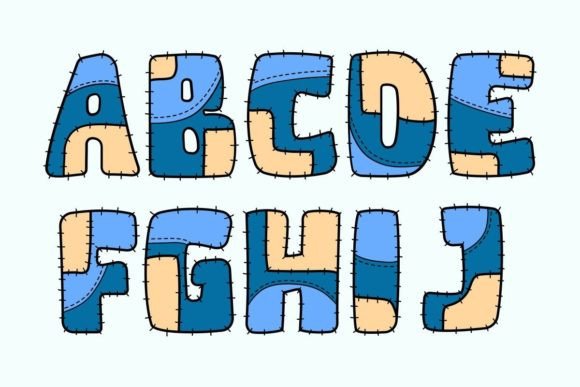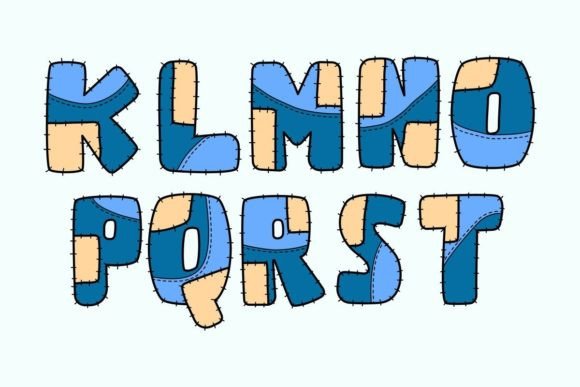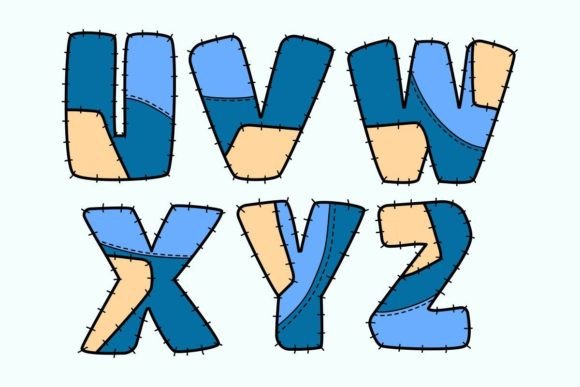
Introduction to Homebrew Patch Font
Remember that moment when you finally found the perfect design element for your project? It’s like the missing puzzle piece that brings everything together. For designers, discovering a new, high-quality font can be a game-changer. And that’s exactly what the Homebrew Patch Font offers – a unique and playful display font that’s perfect for adding a touch of authenticity to your creative projects.
This adorable font is a must-have for any design resource, especially when working on projects for children or educational purposes. With its chunky letters and vibrant colors, the Homebrew Patch Font is sure to make your designs come alive. Plus, with its transparent background, you can easily use it in your favorite design software, including PhotoShop, Illustrator, and Silhouette. And the best part? It’s available for a free download, making it an invaluable resource for designers on a budget.
Whether you’re working on a free download or a paid project, the Homebrew Patch Font is a valuable addition to any design toolkit. Its high-quality design and versatility make it an ideal choice for creative projects, and its transparent background ensures seamless integration into your designs.
Key Features of Homebrew Patch Font
- Features a transparent background, making it easy to integrate into your design without any distracting elements.
- Unique and eye-catching design that sets your project apart from others, with a bold and playful style.
- Designed to be versatile and adaptable, suitable for use in a variety of creative projects, from graphics and logos to web design and more.
Honest Review: Homebrew Patch Font
I recently came across the Homebrew Patch Font, a free download that caught my attention with its unique aesthetic. As a designer, I was eager to dive in and see what it had to offer.
- High quality design: The Homebrew Patch Font is crisp and clear, making it perfect for any creative project.
- Transparent background: This feature is a game-changer for designers who want to easily layer their fonts over images or other design elements.
- Limited character set: The Homebrew Patch Font only includes a limited set of characters, which may not be suitable for longer texts or complex design projects.
- No bold or italic variants: This font only comes in a standard weight, which may not provide enough flexibility for designers who need to emphasize certain text elements.
Overall, I’m impressed with the Homebrew Patch Font’s unique design and high quality. While it may not be suitable for every project, it’s a great addition to any design resource library and can be a great choice for creative projects that require a bold, eye-catching font.
The Homebrew Patch Font is a high-quality design resource that can be used in a variety of creative projects. With its unique and quirky style, this font is perfect for designers looking to add a touch of personality to their work.